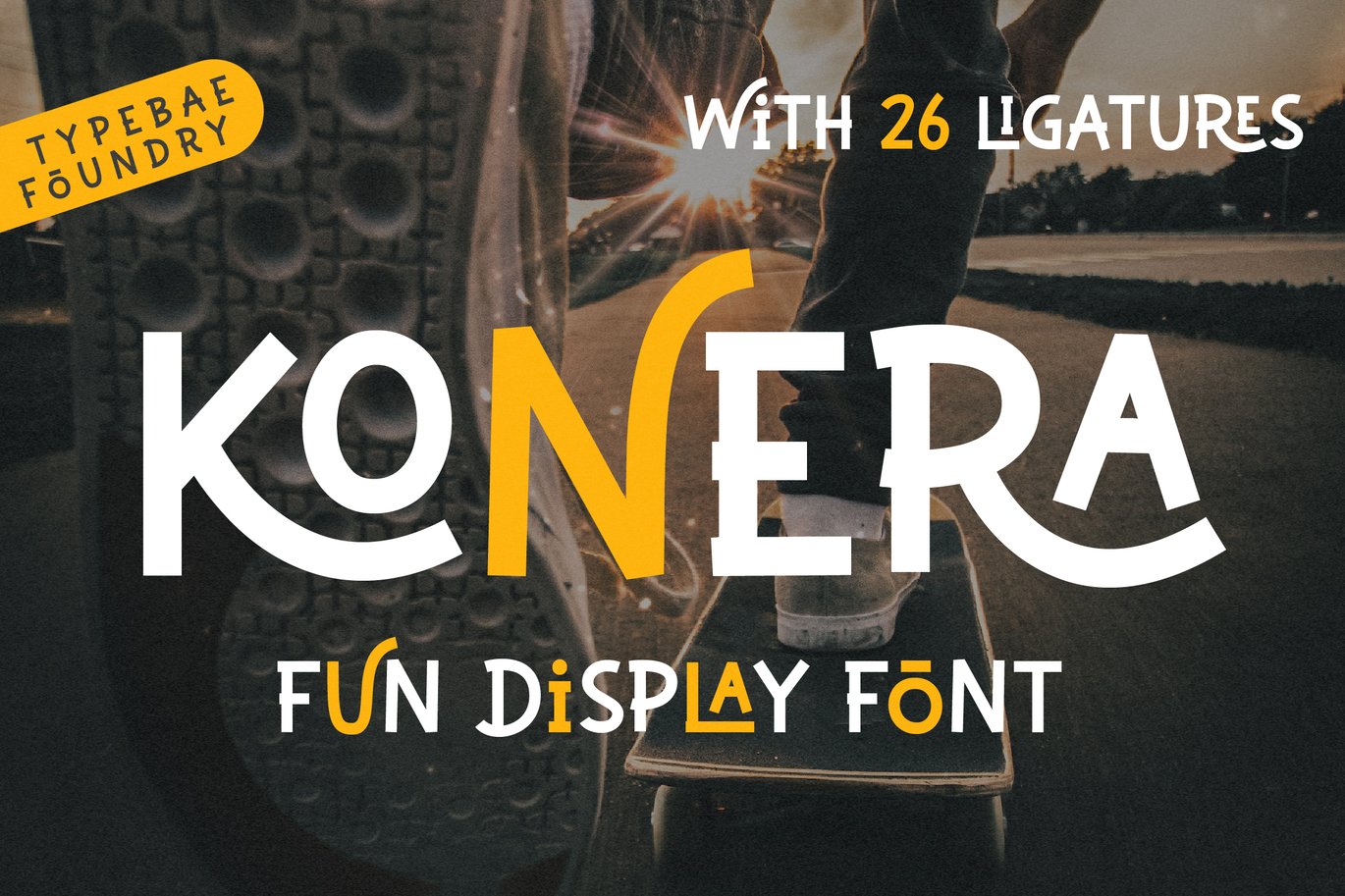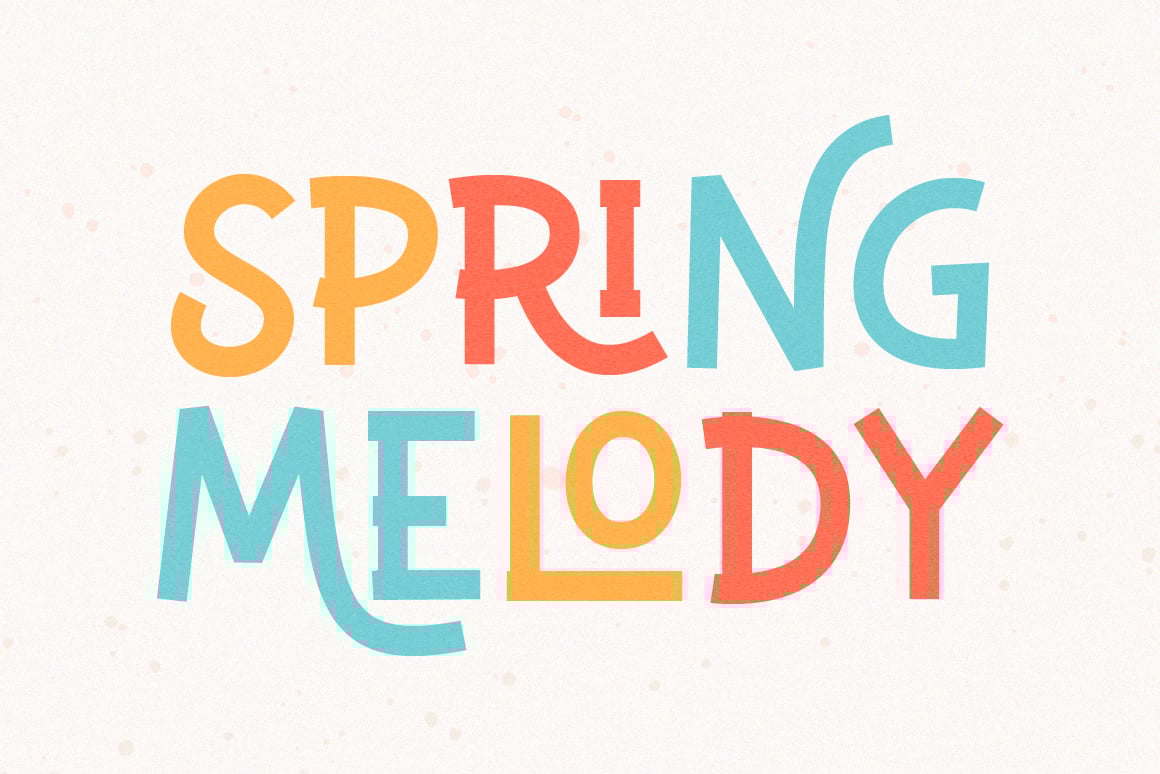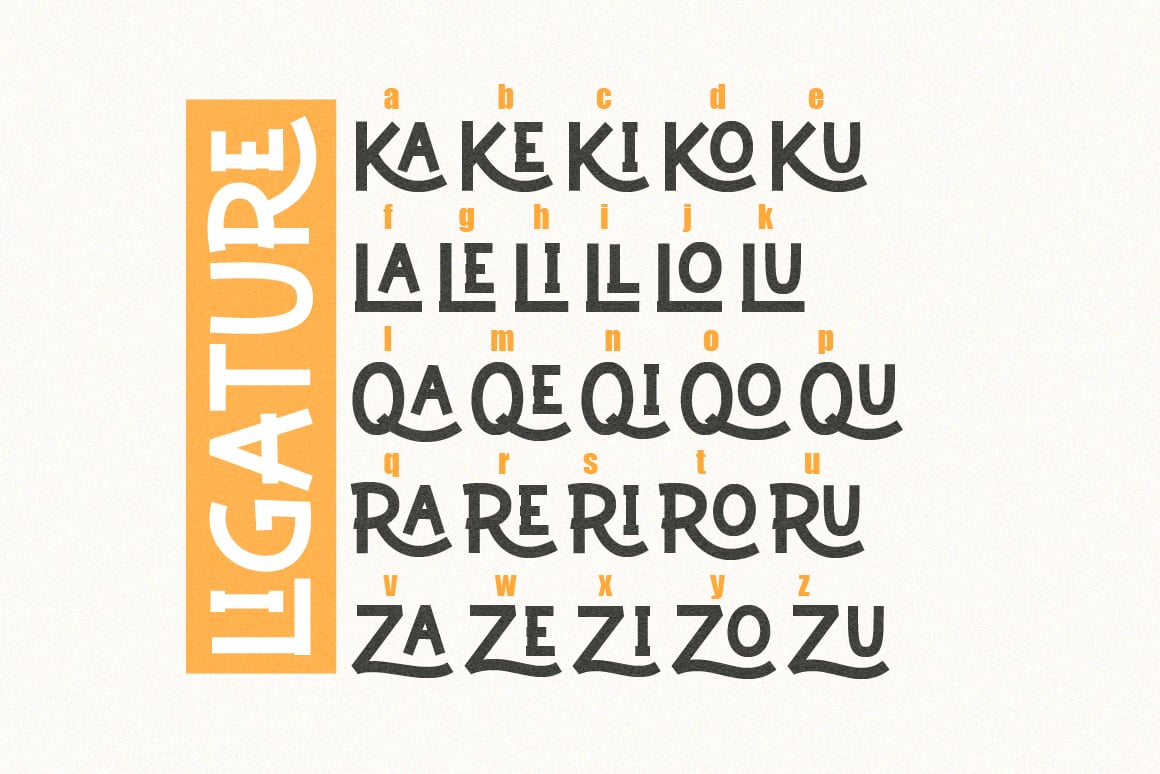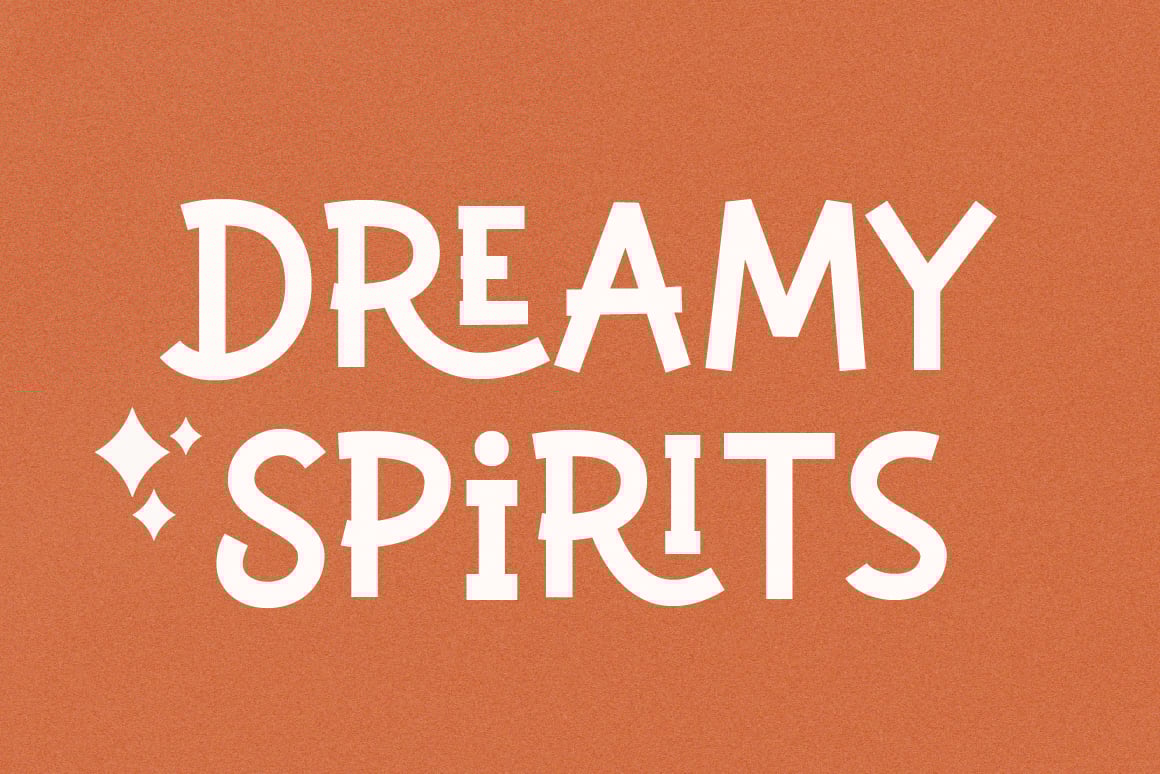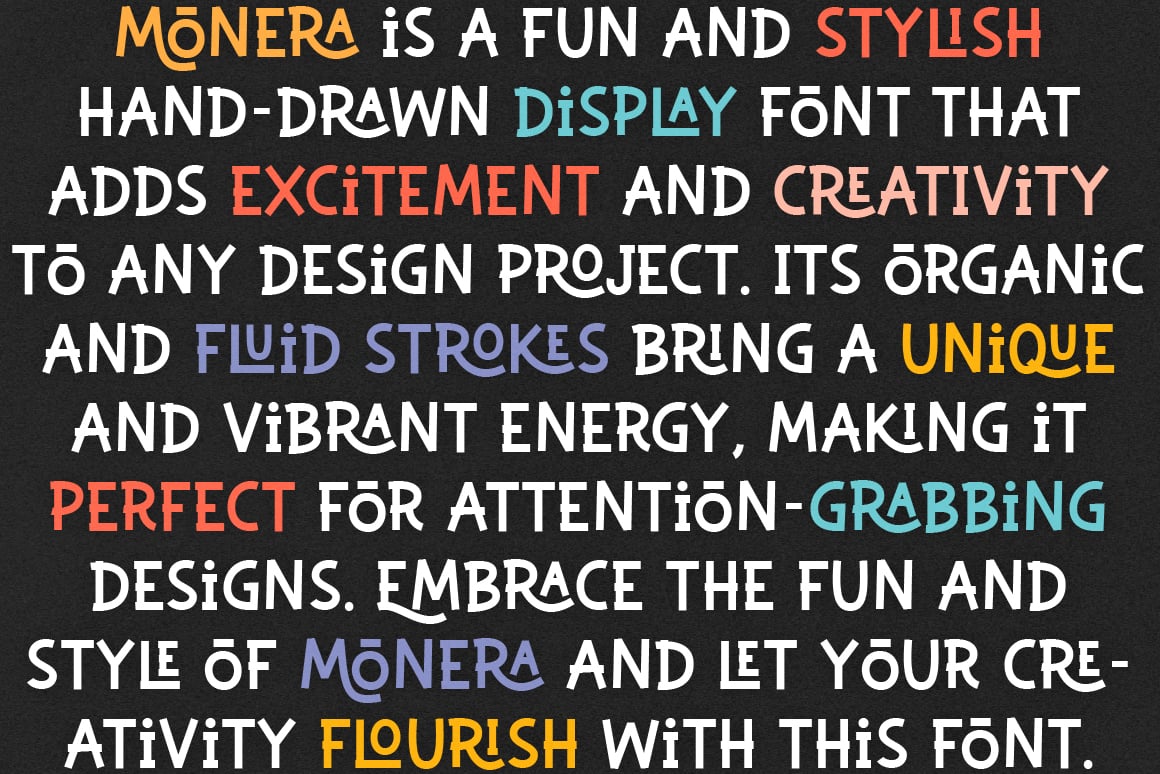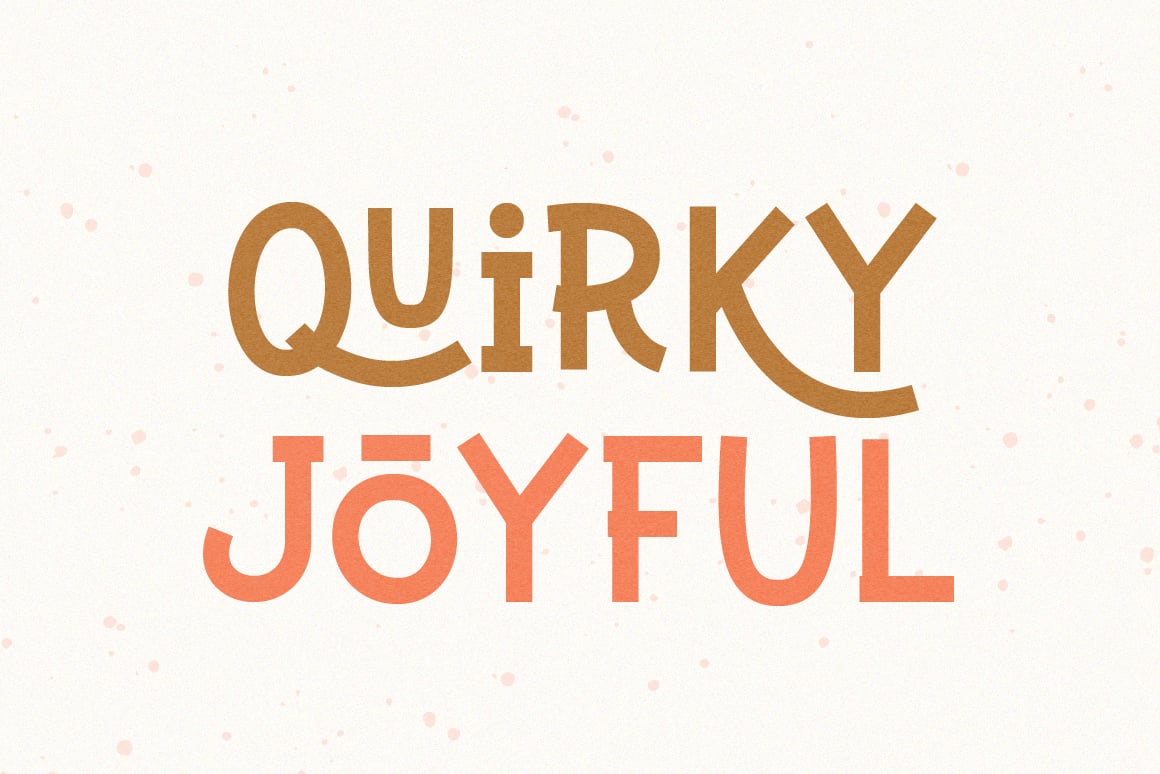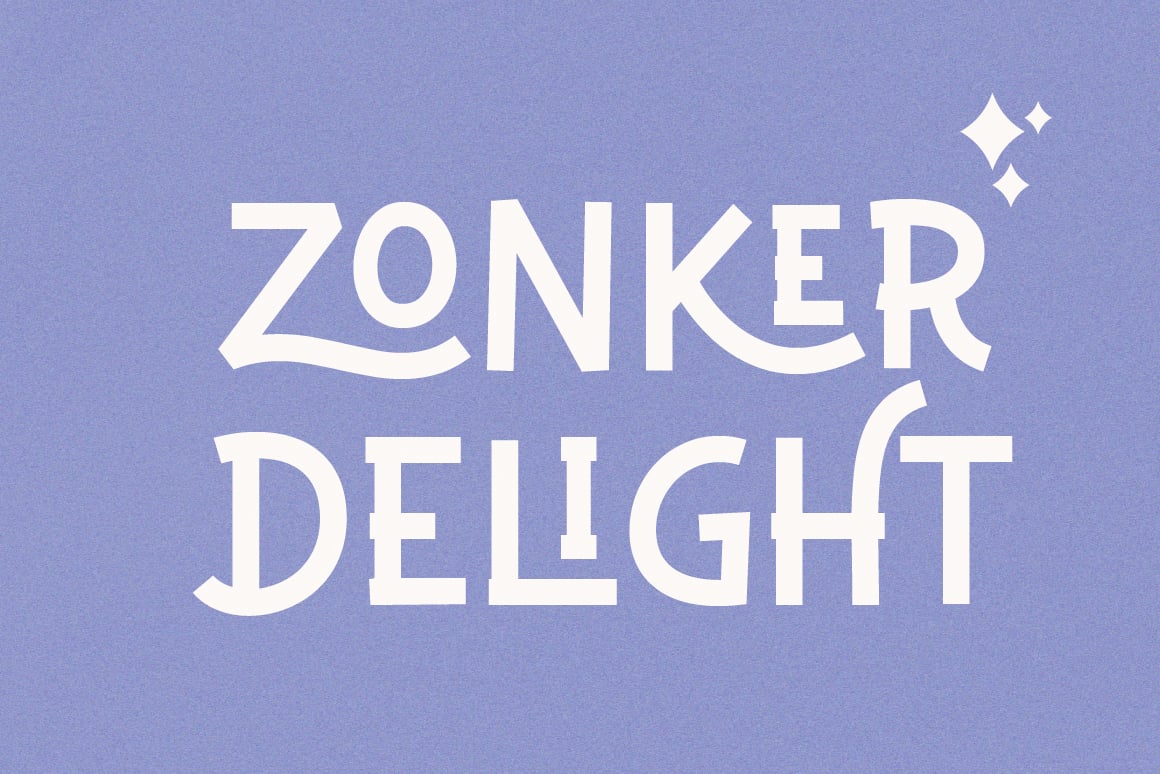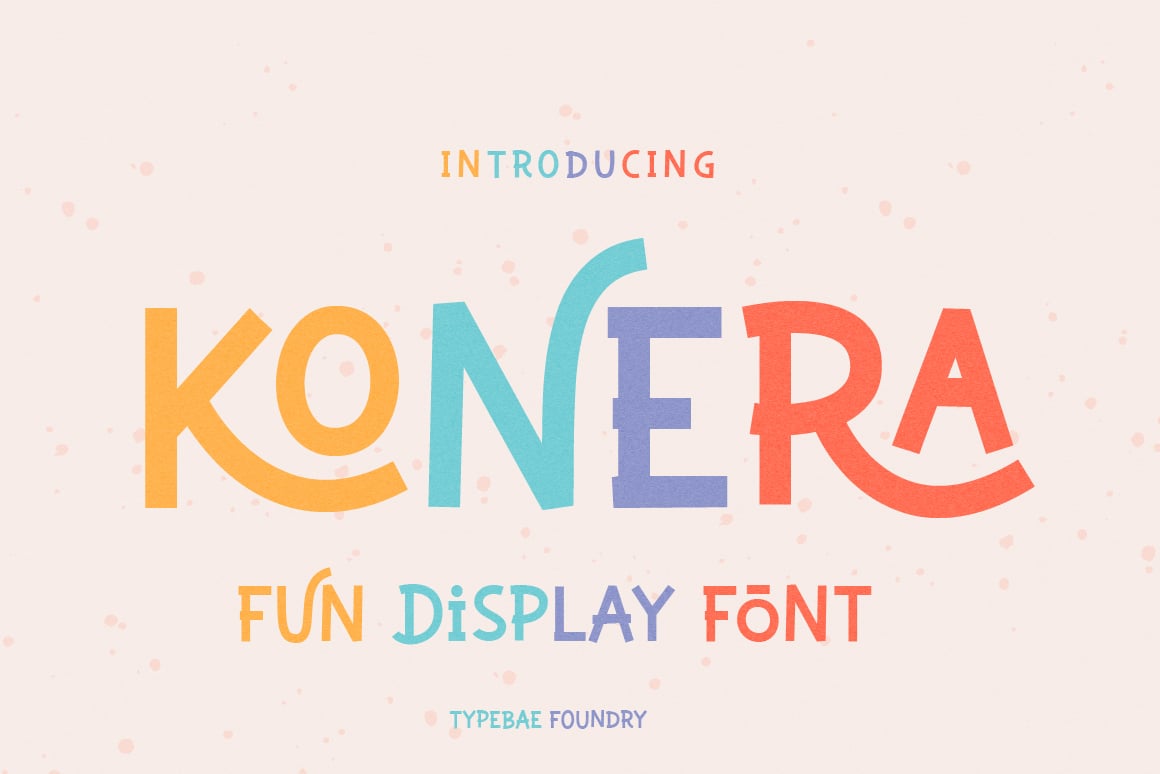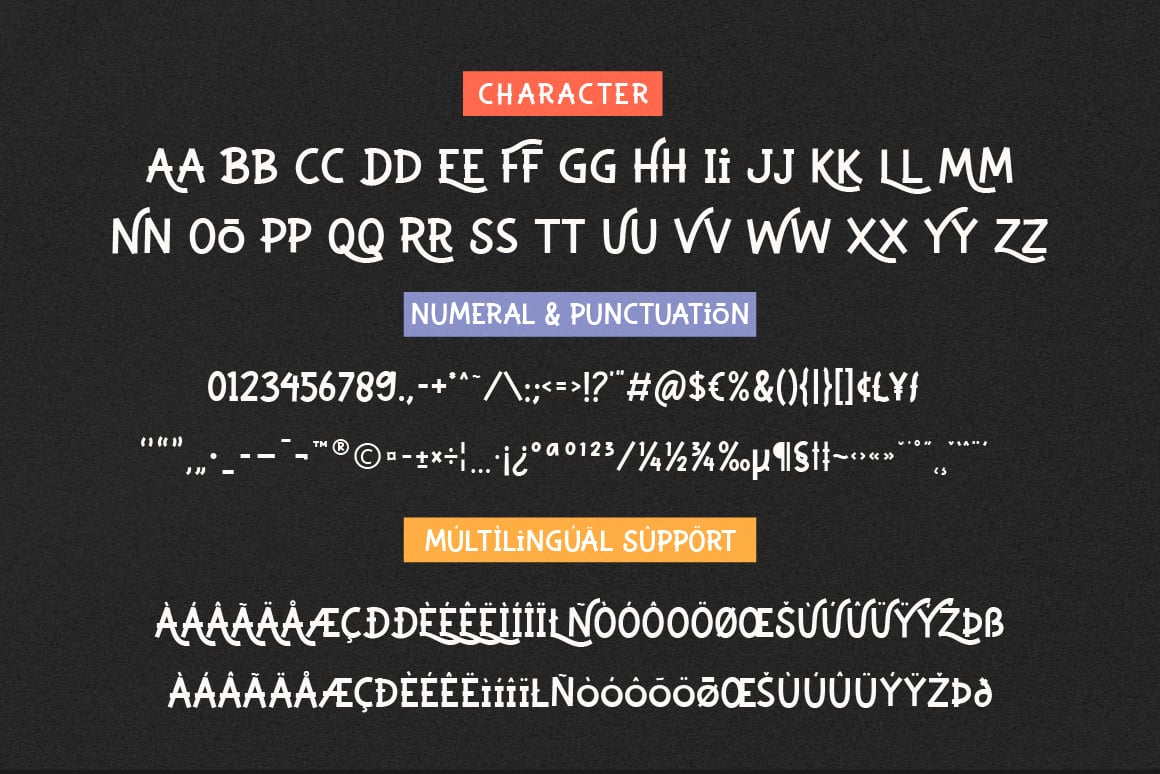
Konera Fun Display Font
Konera is a fun and stylish hand-drawn display font that adds a playful touch to any design. With its charming style and 26 distinctive ligatures, it brings a touch of uniqueness and character to your projects. Let your creativity shine with this captivating font that effortlessly combines fun and style.
- 26 Ligatures feature